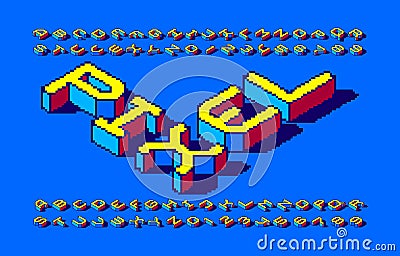
Pixel Isometric Alphabet Font. 3d Letters And Numbers With Shadow. Vector Illustration
Pixel Isometric alphabet font. 3d letters and numbers with shadow. 80s arcade video game typescript.